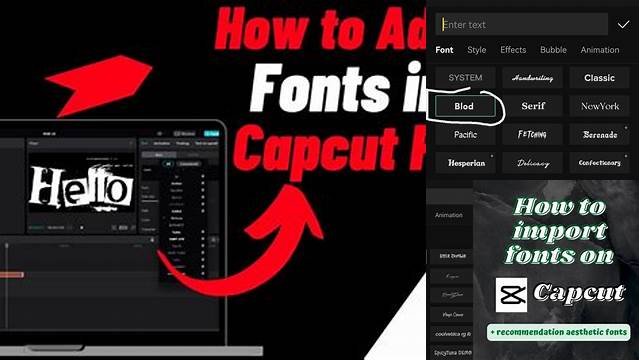
CapCut PC: Font Guide For Stunning Videos
Hey guys! Ever wondered how to make your videos on CapCut PC pop with the perfect font? You're in the right place! Fonts are a crucial element in video editing, setting the tone and conveying your message effectively. Whether you're creating a vlog, a tutorial, or a cinematic masterpiece, choosing the right font can elevate your video from good to amazing. In this comprehensive guide, we'll dive deep into the world of fonts on CapCut PC, covering everything from using the built-in fonts to adding your own custom fonts. We'll also explore font pairing, styling, and some cool tips and tricks to make your text stand out. So, grab your favorite beverage, get comfy, and let's get started!
Before we jump into the how-to, let's chat a bit about why fonts matter so much in video editing. Think of fonts as the voice of your text. A playful, bubbly font can be perfect for a children's video, while a sleek, modern font might be better suited for a tech review. The right font not only enhances readability but also adds personality and emotion to your video. Imagine using a serious, formal font for a funny skit β it just wouldn't work, would it?
When choosing fonts, consider your target audience, the video's theme, and the overall message you want to convey. A clear, legible font is essential for ensuring your viewers can easily read your text, especially on smaller screens. A well-chosen font can also reinforce your brand identity if you're creating content for a business or channel. Experiment with different styles β serif, sans-serif, script, and decorative fonts β to find what resonates best with your project. Font size, color, and animation also play a significant role in how your text is perceived, so we'll delve into those aspects later on.
CapCut PC comes with a fantastic library of built-in fonts, catering to a wide range of styles and needs. These fonts are readily available, making it super easy to add text to your videos without needing to download anything extra. To access these fonts, simply open CapCut, create a new project, and add a text layer. You'll find the font options in the text editing panel, usually located on the right side of the screen. The font selection menu displays a variety of fonts, often categorized by style or usage, making it easier to find what you're looking for. You can scroll through the list and see a preview of each font applied to your text in real-time, allowing you to quickly assess which one fits your aesthetic. CapCut's built-in fonts cover everything from classic serif and sans-serif styles to more decorative and script-like options, giving you plenty of choices for different projects.
Some of the built-in fonts are designed for specific purposes, such as titles, subtitles, or lower thirds. Experiment with different fonts to see how they look in various contexts within your video. Remember, readability is key, especially for subtitles and lower thirds, so choose fonts that are clear and easy to read at a glance. CapCut also regularly updates its font library, so keep an eye out for new additions that might spark your creativity. If you're unsure where to start, try browsing through the font categories or using the search bar to find fonts based on keywords like "bold," "elegant," or "modern." Don't be afraid to play around with different fonts until you find the perfect match for your video's style and message. The beauty of CapCut is its user-friendly interface, making it a breeze to explore and experiment with different fonts and text styles.
While CapCut's built-in fonts are awesome, sometimes you need something extra special β a unique font that truly reflects your brand or the mood of your video. That's where custom fonts come in! Adding your own fonts to CapCut PC is surprisingly simple, and it opens up a whole new world of creative possibilities. Imagine having access to thousands of fonts, each with its own unique personality and style. To add custom fonts, you'll first need to download them from a reputable font website. There are tons of websites offering free and premium fonts, such as Google Fonts, DaFont, and Adobe Fonts. Once you've downloaded your font (usually in .ttf or .otf format), you'll need to install it on your computer. On Windows, this typically involves right-clicking the font file and selecting "Install." On macOS, you can double-click the font file and then click "Install Font" in the Font Book application.
Okay, so you've chosen your perfect font β now it's time to make it shine! CapCut PC offers a bunch of styling options and effects to enhance your text and make it visually appealing. From basic adjustments like size, color, and alignment to more advanced features like shadows, strokes, and backgrounds, CapCut gives you the tools to create text that truly pops. Let's start with the basics. In the text editing panel, you'll find options to adjust the font size, allowing you to make your text larger or smaller to fit your composition. Color is another key element β CapCut's color picker lets you choose any color imaginable, or you can use the eyedropper tool to select a color directly from your video. Alignment options help you position your text correctly within the frame, whether you want it centered, left-aligned, or right-aligned.
Now, let's dive into the more exciting effects! Shadows can add depth and dimension to your text, making it stand out from the background. Strokes, or outlines, can create a bold and defined look, especially useful for titles and headings. Backgrounds can make your text even more legible by providing a solid or semi-transparent backdrop. CapCut also offers a range of text animations, allowing you to animate your text in various ways β fade in, slide in, zoom, and more. These animations can add a dynamic and engaging element to your videos, drawing viewers' attention to your text. Experiment with different combinations of styling options and effects to find what works best for your project. A subtle shadow and a bold stroke can make a big difference in readability, while a carefully chosen animation can add a touch of flair. Remember, the goal is to make your text both informative and visually appealing, so play around with these features and let your creativity run wild!
Choosing a great font is only half the battle β pairing it with another font can take your video's design to the next level. Font pairing involves combining two or more fonts that complement each other, creating a visually harmonious and balanced look. Think of it like a fashion ensemble β the right combination of fonts can make your video look stylish and professional. A common approach is to pair a serif font with a sans-serif font. Serif fonts, with their small decorative strokes, often work well for body text, while sans-serif fonts, which are cleaner and more modern, are great for headings and titles. This combination creates a visual contrast that's easy on the eyes and helps viewers differentiate between different text elements.
Another popular technique is to pair fonts within the same font family. Many font families include variations in weight and style, such as regular, bold, italic, and light. Using different weights within the same family can create a cohesive and professional look. When choosing font pairings, consider the overall tone and style of your video. If you're creating a serious and professional video, opt for classic and understated font combinations. For a more playful and creative video, you can experiment with bolder and more unusual pairings. Best practices also include limiting the number of fonts you use in a single video. Sticking to two or three fonts helps maintain a clean and consistent look. Also, make sure your fonts are legible and readable across different devices and screen sizes. Test your videos on various platforms to ensure your text looks good everywhere. With some careful font pairing, you can create a visually stunning video that captivates your audience.
Alright, guys, let's wrap things up with some pro tips and tricks for using fonts effectively in CapCut PC! These little gems can help you elevate your video editing game and create text that truly stands out. First up, think about timing. When adding text to your video, consider how long it will be on screen and adjust the duration accordingly. You want viewers to have enough time to read your text without it lingering for too long. Use CapCut's timeline to precisely control when your text appears and disappears, ensuring a smooth and seamless viewing experience.
Another cool trick is to use text to create visual interest. Instead of just displaying information, use text as a design element. Experiment with different text layouts, sizes, and positions to create eye-catching compositions. For example, you could use large, bold text as a background element or overlap text with images and videos for a creative effect. Text animations can also be used strategically to guide viewers' eyes and emphasize key points. A subtle fade-in or slide-in can draw attention to your text without being distracting. Don't forget about contrast! Make sure your text stands out from the background by using contrasting colors. A dark color on a light background or vice versa will improve readability and ensure your text doesn't get lost in the video.
Finally, pay attention to font hierarchy. Use different font sizes and styles to create a visual hierarchy, making it clear which text elements are most important. Headings and titles should be larger and bolder than body text, guiding viewers through your message. With these tips and tricks, you'll be a font master in no time, creating videos that are both informative and visually stunning. So, go ahead, experiment, and have fun with fonts in CapCut PC!
So there you have it β a complete guide to using fonts on CapCut PC! We've covered everything from exploring the built-in fonts to adding your own custom fonts, styling your text, font pairing, and some awesome tips and tricks. Fonts are a powerful tool in video editing, and with CapCut's user-friendly interface, you have all the resources you need to create text that truly shines. Remember, the right font can elevate your video, convey your message effectively, and add personality to your content. So, take the time to explore different fonts, experiment with styling options, and find what works best for your unique style and video goals. With a little practice and creativity, you'll be crafting stunning videos with text that's both informative and visually appealing. Now, go out there and create something amazing! Happy editing, guys!